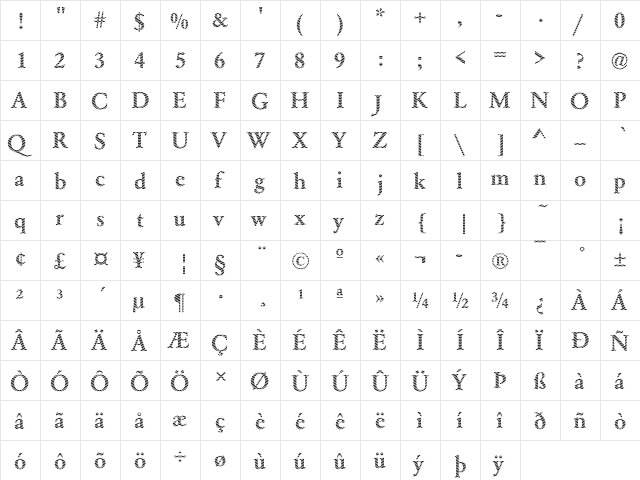
DTCGaramondM05 Regular
DTCGaramondM05 is a composed and adaptable typeface that performs quietly and consistently across a wide range of design contexts.